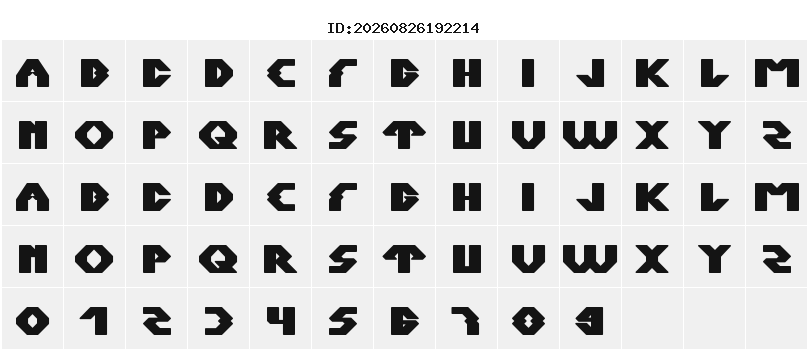
XERXES Preview
• Font Name: XERXES
• Font ID: XERXES:Version 1.00
• Full Font Name: XERXES
• Version: Version 1.00 October 22, 2014, initial release
• PostScript Name: XERXES
About XERXES.ttf
XERXES.ttf is a modern, elegant sans-serif font designed for ultimate readability and visual harmony. Perfect for branding, headlines, web design, and print materials.